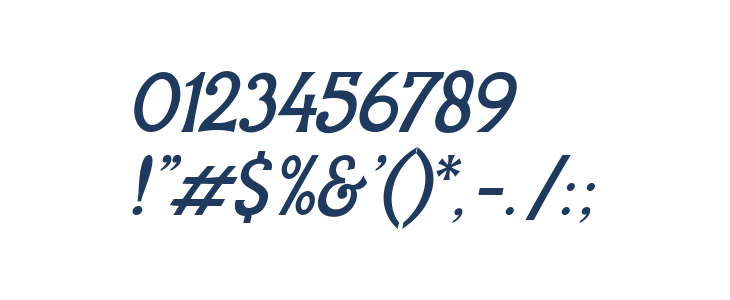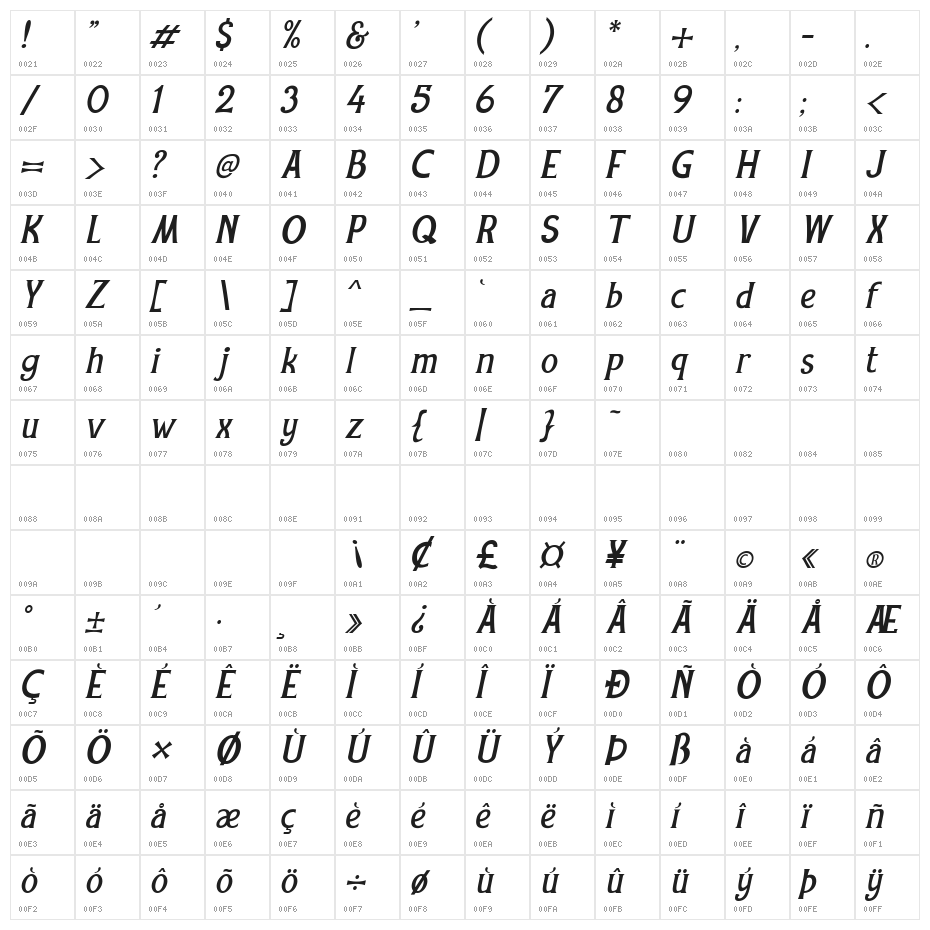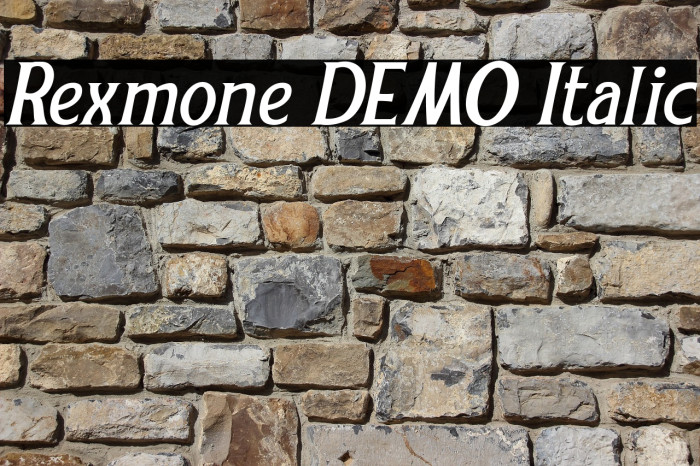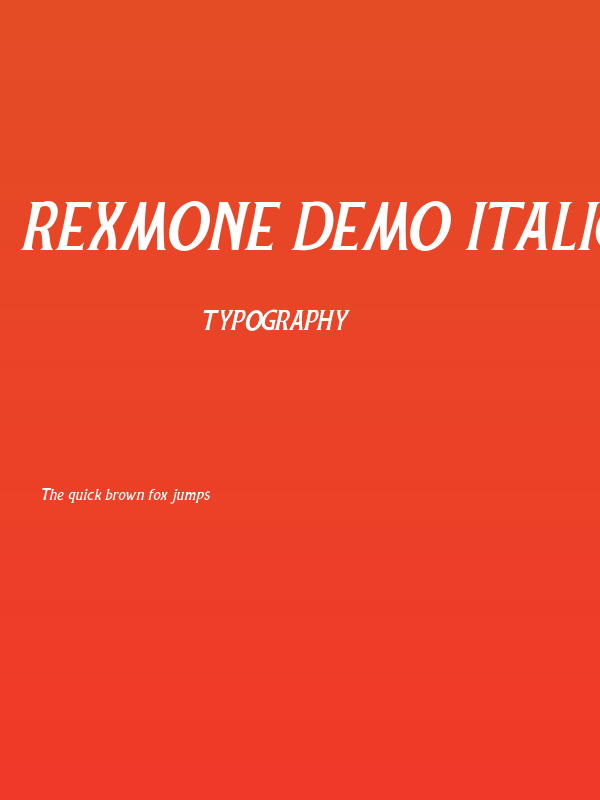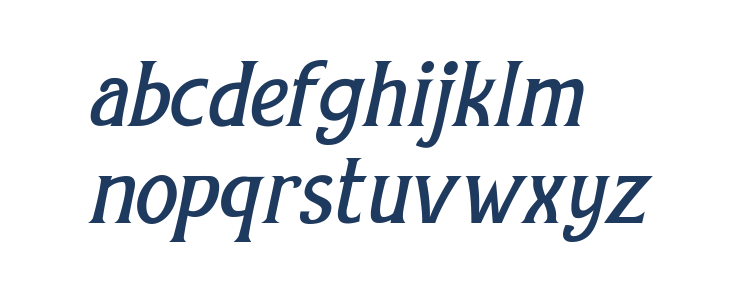
Rexmone DEMO Italic Font
Rexmone DEMO Italic Description
This font features a dynamic and elegant italic style, characterized by its smooth curves and slightly slanted letters. The uppercase letters are bold and commanding, while the lowercase letters maintain a consistent flow, enhancing readability. The numerals are distinct and well-proportioned, ensuring clarity in numerical data. Special characters are crafted with precision, adding a touch of sophistication. The overall design exudes a sense of modernity and elegance, making it suitable for various applications.
| Proposed Projects | Ideal for branding, editorial design, and elegant invitations, this font can also enhance the visual appeal of websites and advertisements. |